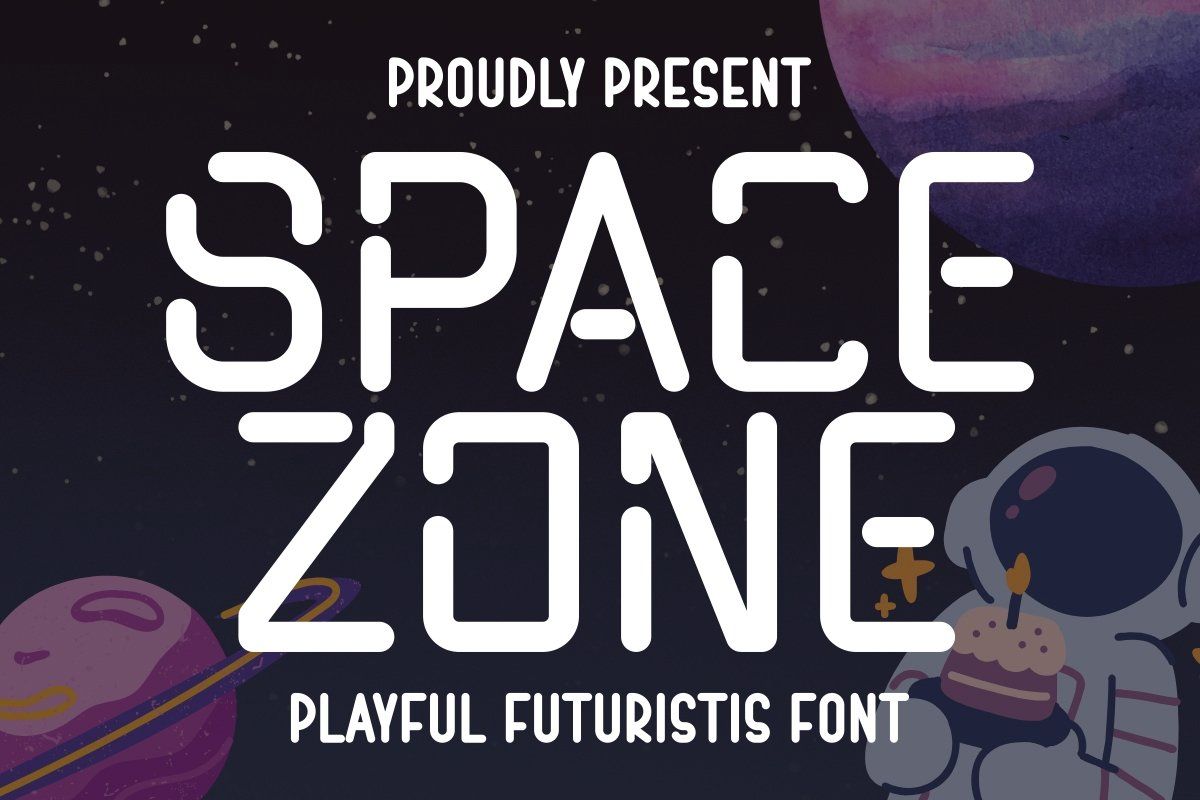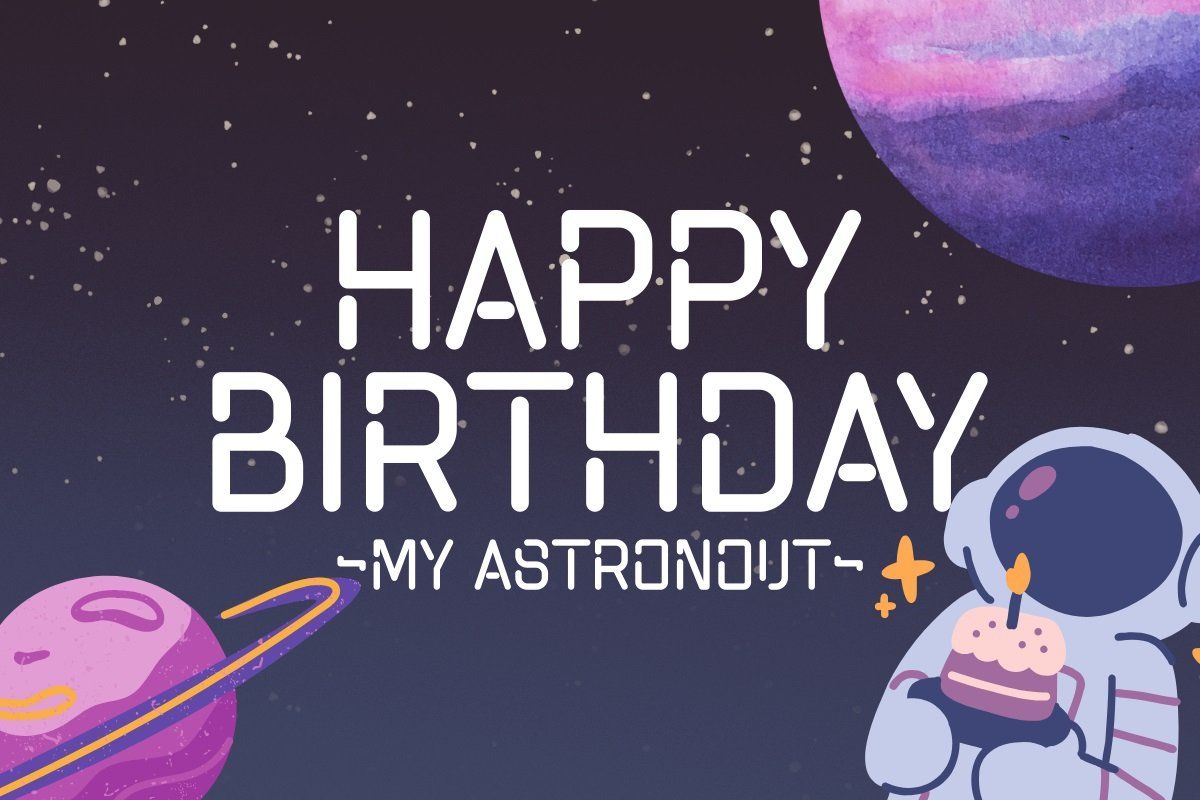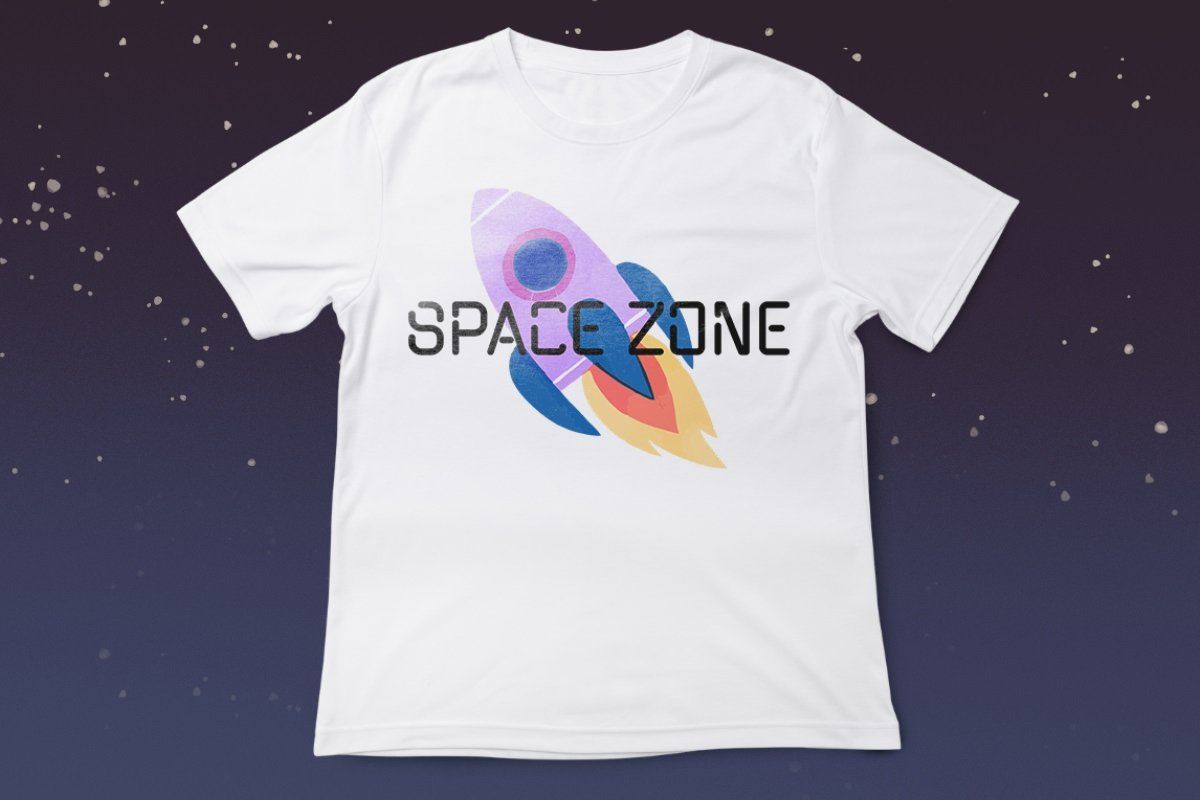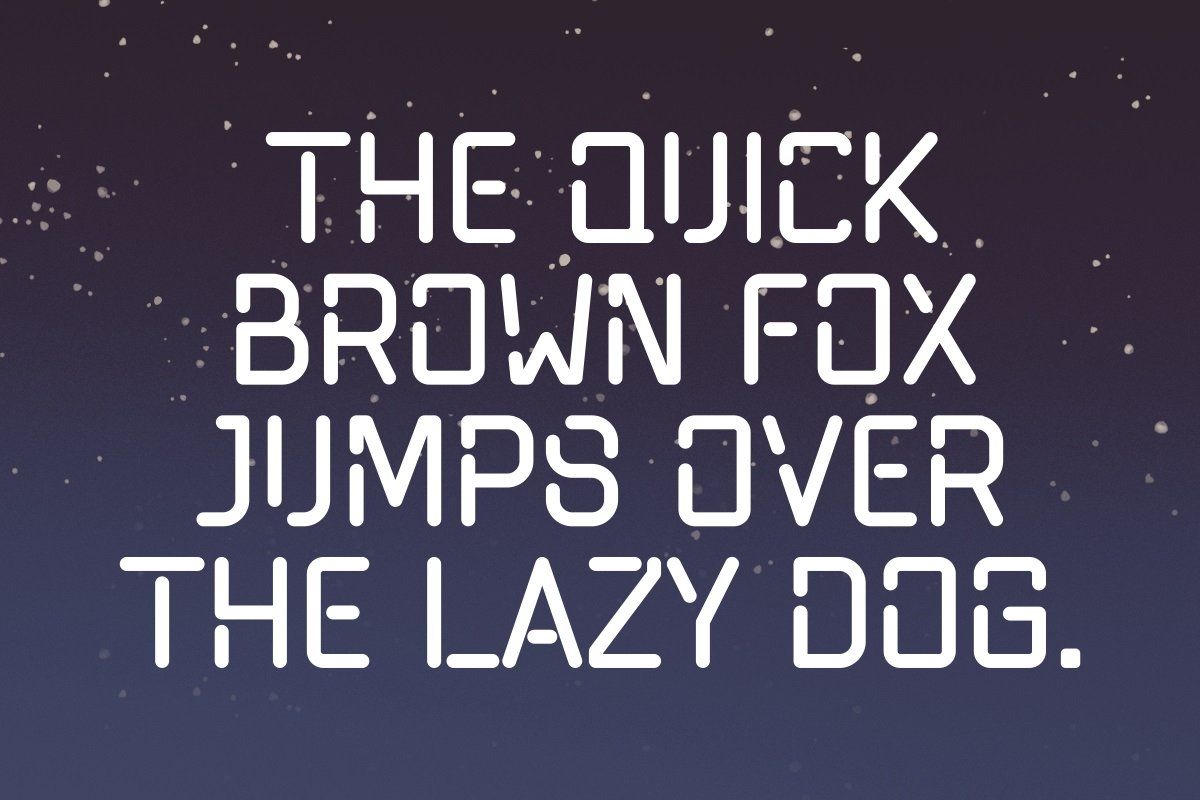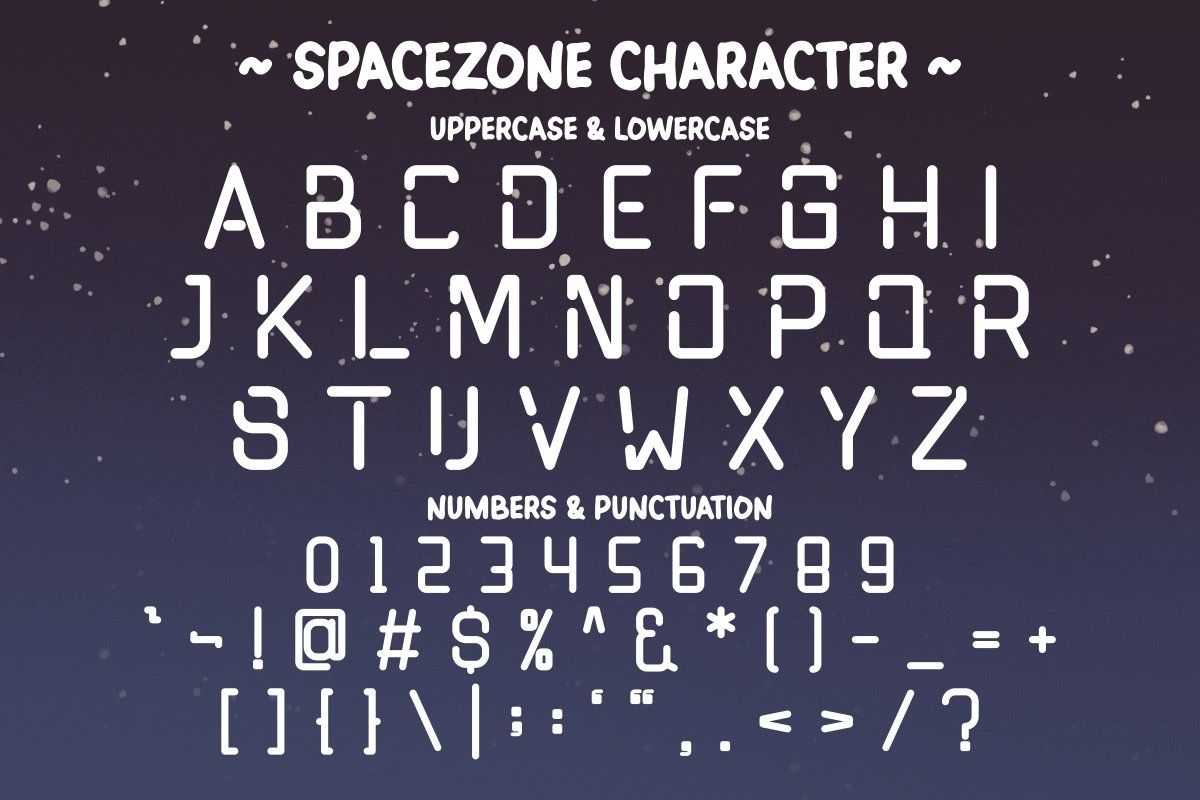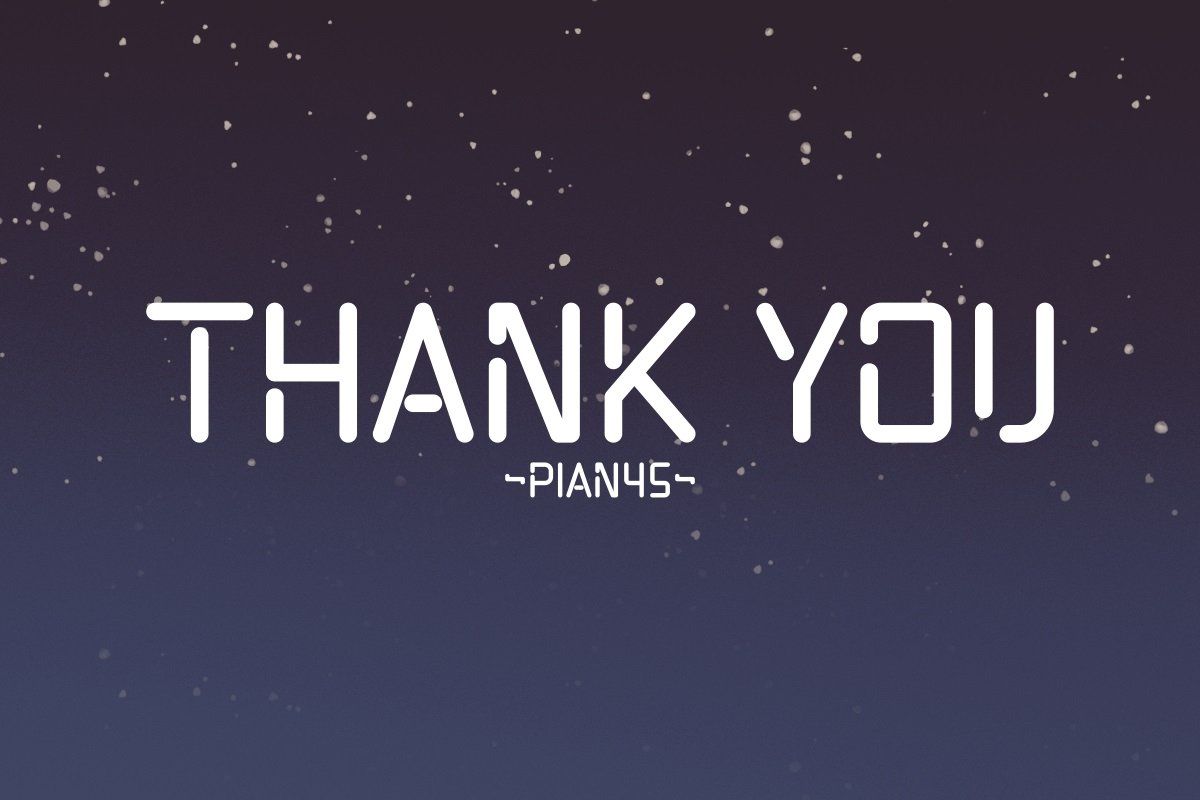
Introducing Space Zone, our futuristic and modern display font inspired by the mysteries of outer space. Space Zone brings a touch of cosmic elegance to your creations, making it perfect for interstellar branding, sci-fi posters, and other designs that aim to evoke the spirit of the future. Elevate your designs to new heights with ‘Space Zone’ and let your creativity reach for the stars.